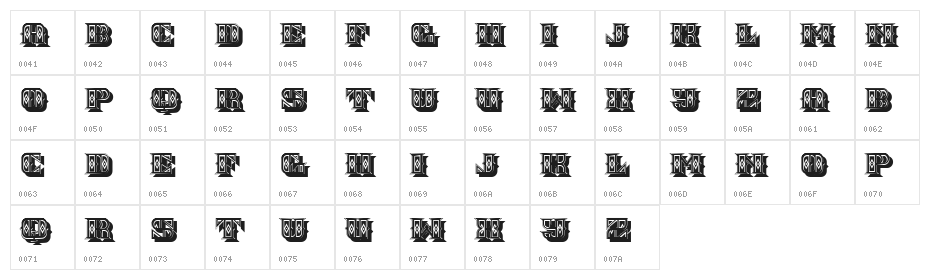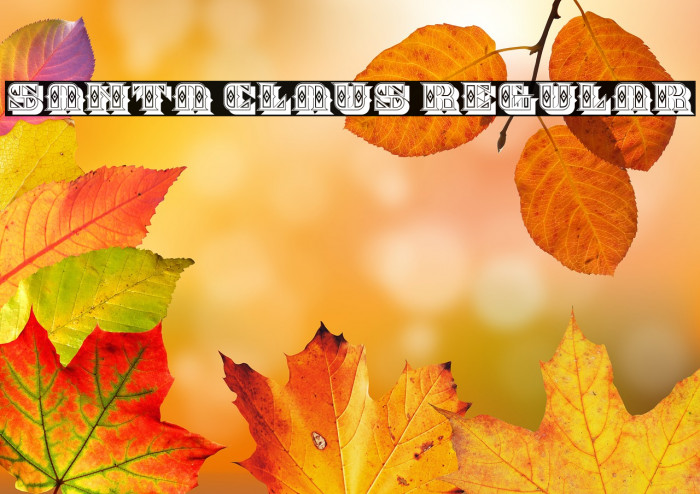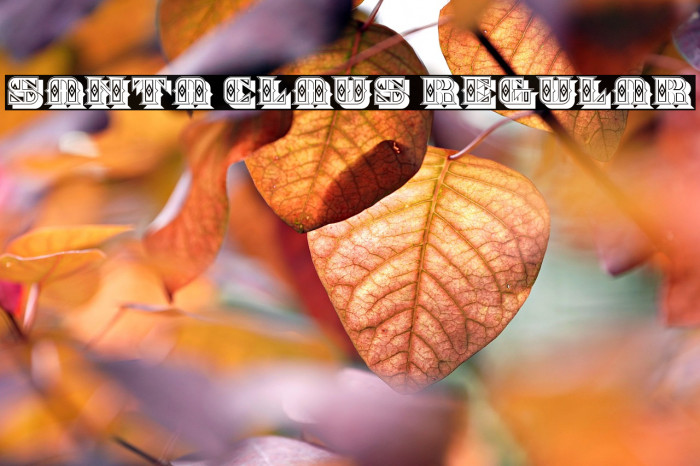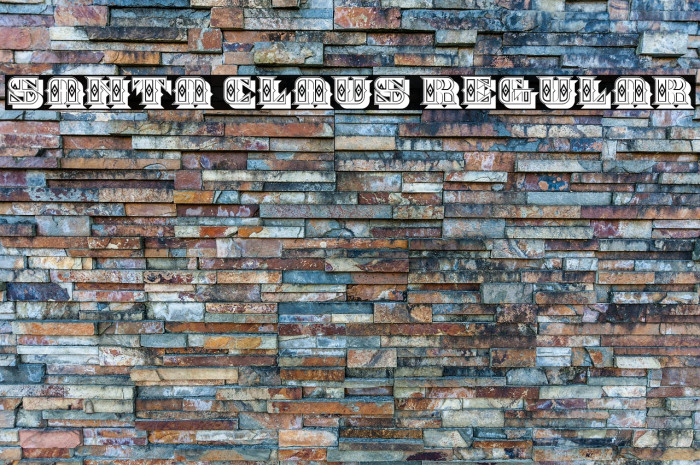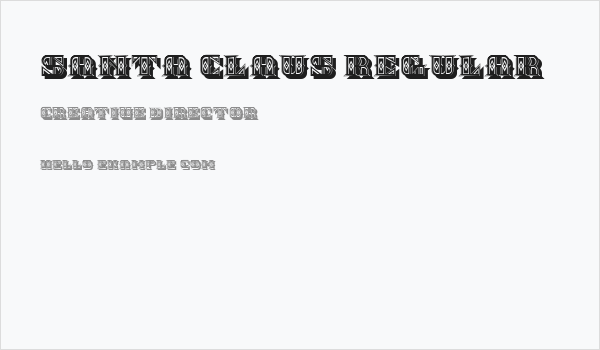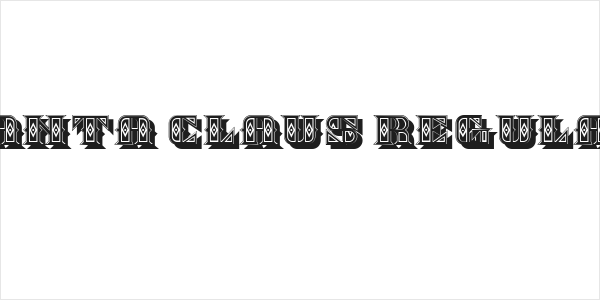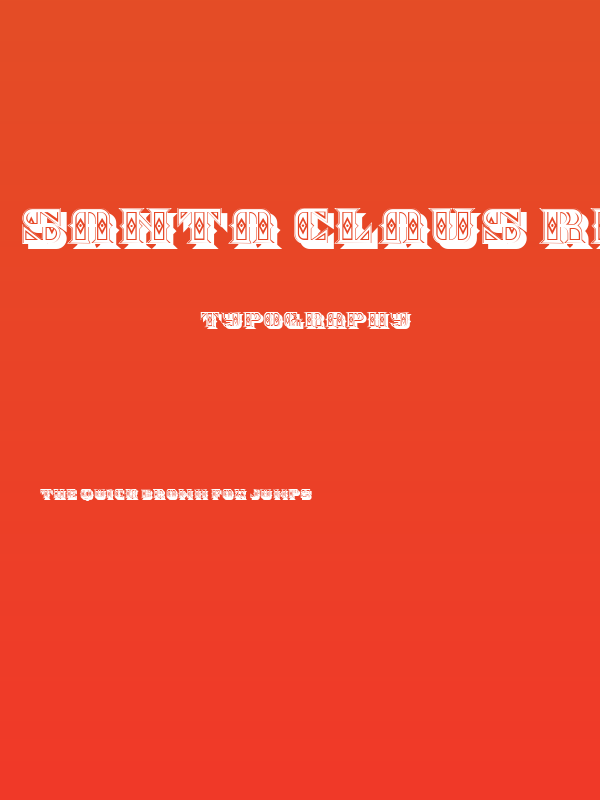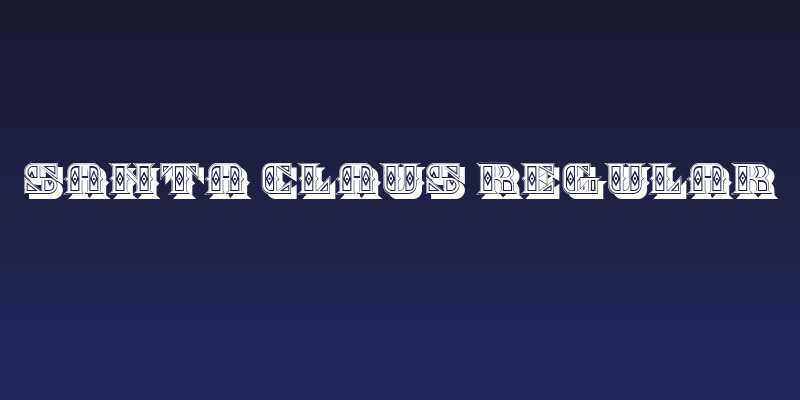
Santa Claus Regular Font
Santa Claus Regular Description
This font is a decorative and festive typeface that exudes a playful and whimsical charm. The characters are bold and intricately designed with ornate patterns and embellishments that evoke a sense of holiday cheer. Each letter is uniquely crafted with a combination of geometric shapes and flourishes, creating a visually striking appearance. The font's style is reminiscent of traditional holiday motifs, making it perfect for seasonal designs. The boldness of the characters ensures readability while maintaining an artistic flair. This typeface is ideal for capturing the spirit of celebration and joy, making it a great choice for festive projects.
| Proposed Projects | Ideal for holiday cards, festive banners, seasonal advertisements, and decorative posters. |